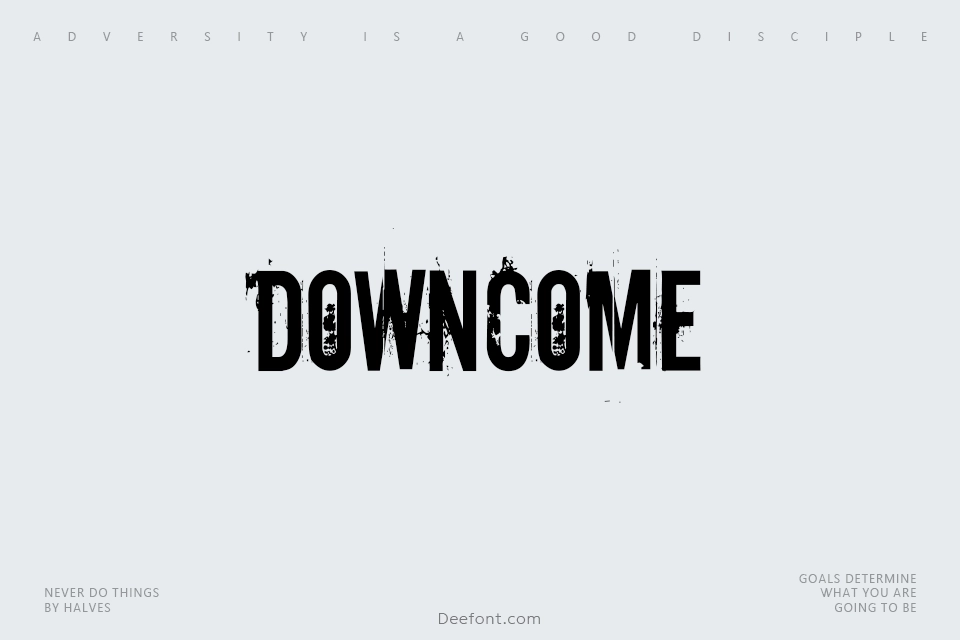
Downcome Font
Downcome is a distinctive display typeface created by Misprinted Type that specializes in distressed, destroy, and grunge aesthetics. Featuring a damaged and deliberately imperfect design, it delivers a raw, industrial character perfect for bold typography applications. With support for over 40 languages and 245 glyphs, this versatile font works exceptionally well for posters, album covers, branding projects, and creative designs demanding visual impact. The typeface embodies the expressive nature of experimental typography while maintaining functional legibility across diverse creative contexts.